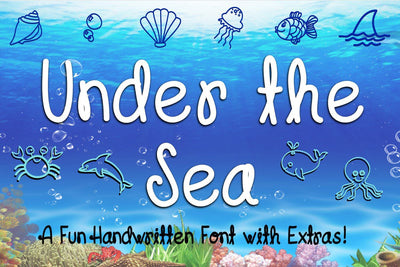
Under the Sea
This fun Banner Font comes in 2 styles! Perfect for the party's you are planning!!
As always our fonts and typefaces work great for logos, header, Titles, Prints & other Creative process possibilities.
Perfect for crafters and die cutting machines.